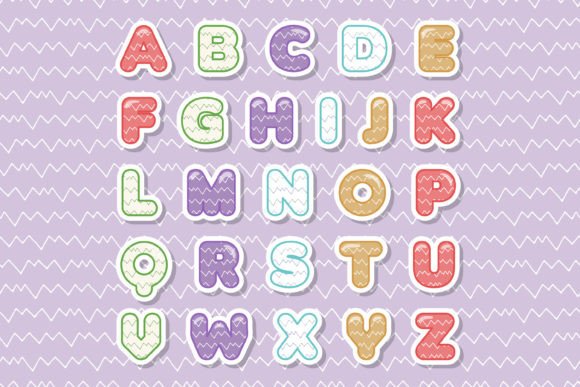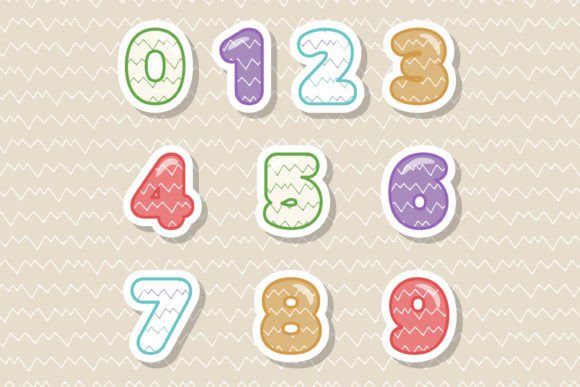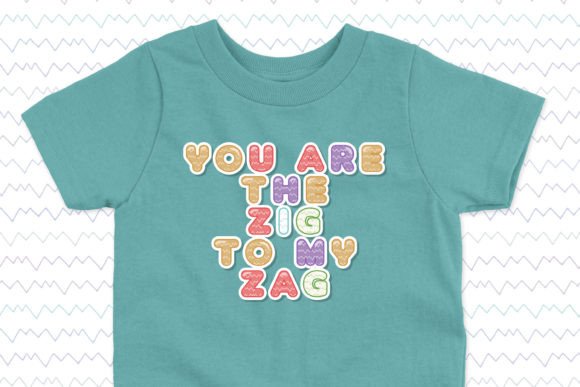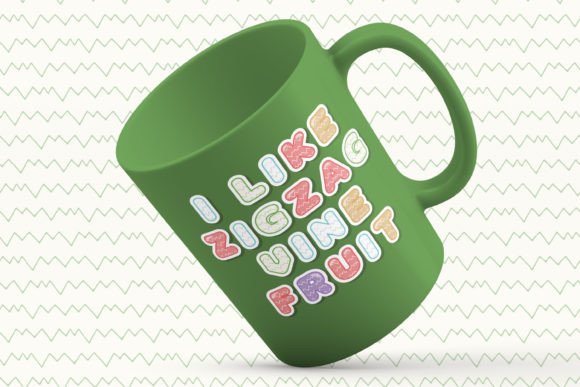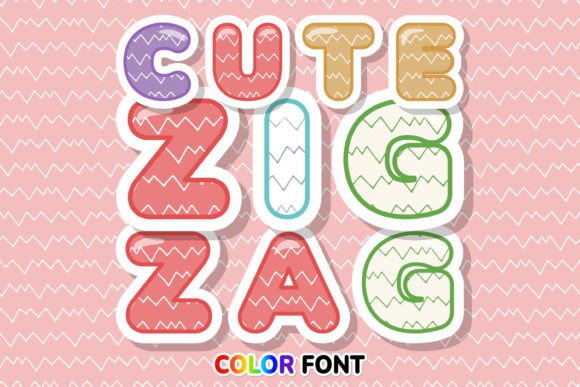
Cute Zigzag Font: Add a Wavy Touch to Your Designs
Are you looking for a unique and playful font to elevate your designs, crafts, or creations? Look no further than the Cute Zigzag Font! This amazing color font is designed in the style of a wavy pattern, making it perfect for adding a lovely touch to any project. In this article, we’ll dive into the features and benefits of the Cute Zigzag Font, as well as provide tips on how to use it effectively.
What is Cute Zigzag Font?
Cute Zigzag Font is an incredibly cool color font designed to bring a wavy, zigzag pattern to your designs. Its unique style makes it stand out from traditional fonts, allowing you to add a playful and creative touch to your projects. Whether you’re a designer, crafter, or DIY enthusiast, this font is sure to inspire your next creation.
Key Features of Cute Zigzag Font
Benefits of Using Cute Zigzag Font
So, why choose Cute Zigzag Font for your next project? Here are just a few benefits:
- Unique Style: The wavy, zigzag pattern of this font adds a playful and creative touch to any design, making it perfect for projects that require a bit of personality.
- Customization: As a color font, Cute Zigzag Font offers endless possibilities for customization. Experiment with different colors, patterns, and designs to create something truly unique.
Tips for Using Cute Zigzag Font
To get the most out of Cute Zigzag Font, here are a few tips:
- Experiment with Colors: Try out different color combinations to create unique and eye-catching designs.
- Mix and Match: Combine Cute Zigzag Font with other fonts or design elements to create a truly one-of-a-kind look.
Who Can Use Cute Zigzag Font?
Cute Zigzag Font is perfect for:
- Designers: Add a unique touch to your designs, from brochures to business cards.
- Crafters: Use this font to create personalized gifts, decorations, or other DIY projects.
- DIY Enthusiasts: Bring a playful touch to your DIY projects, from scrapbooking to home decor.
In conclusion, Cute Zigzag Font is an amazing color font that can add a wavy, zigzag pattern to your designs, crafts, or creations. With its unique style, compatibility with popular design software, and ease of use, this font is perfect for designers, crafters, and DIY enthusiasts alike. So why wait? Download Cute Zigzag Font today and start creating something truly special!